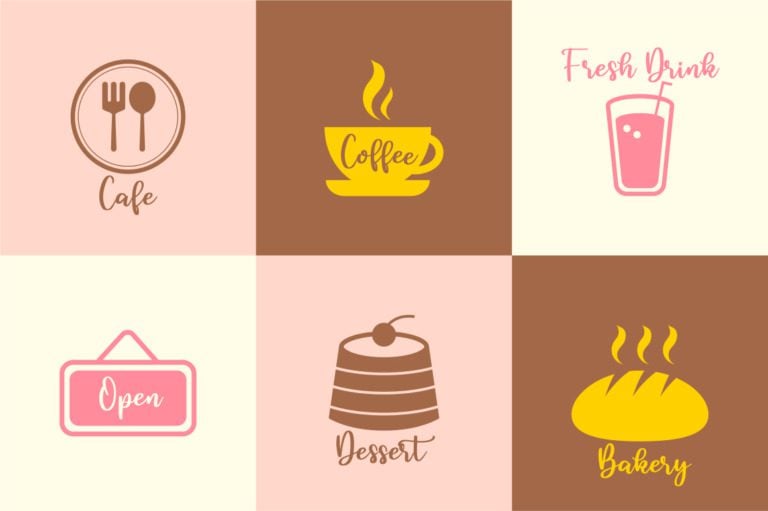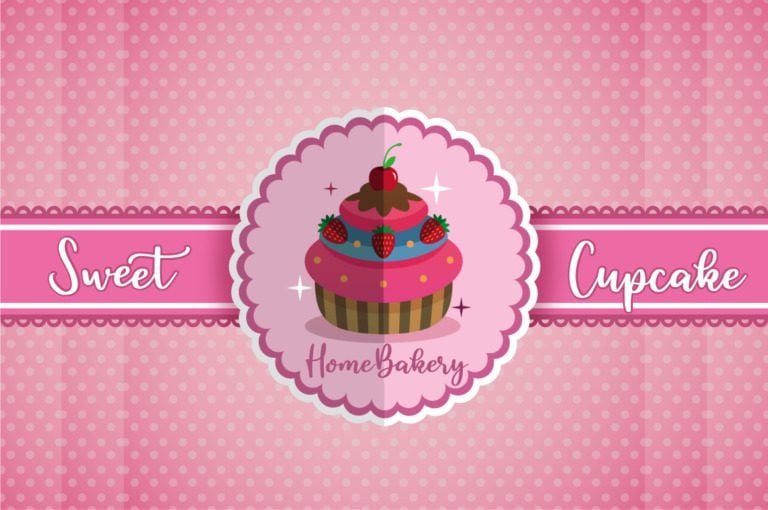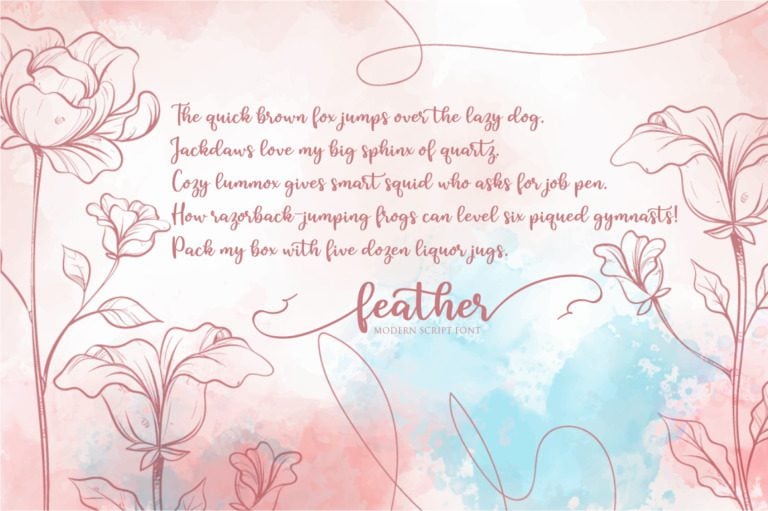
Feather Font
Feather Font is a light and airy typeface with a handwritten style. Its delicate strokes and organic shapes create a soft and feminine atmosphere. The font is perfect for projects that require a touch of elegance and sophistication, such as wedding invitations, branding for beauty products, and social media posts.